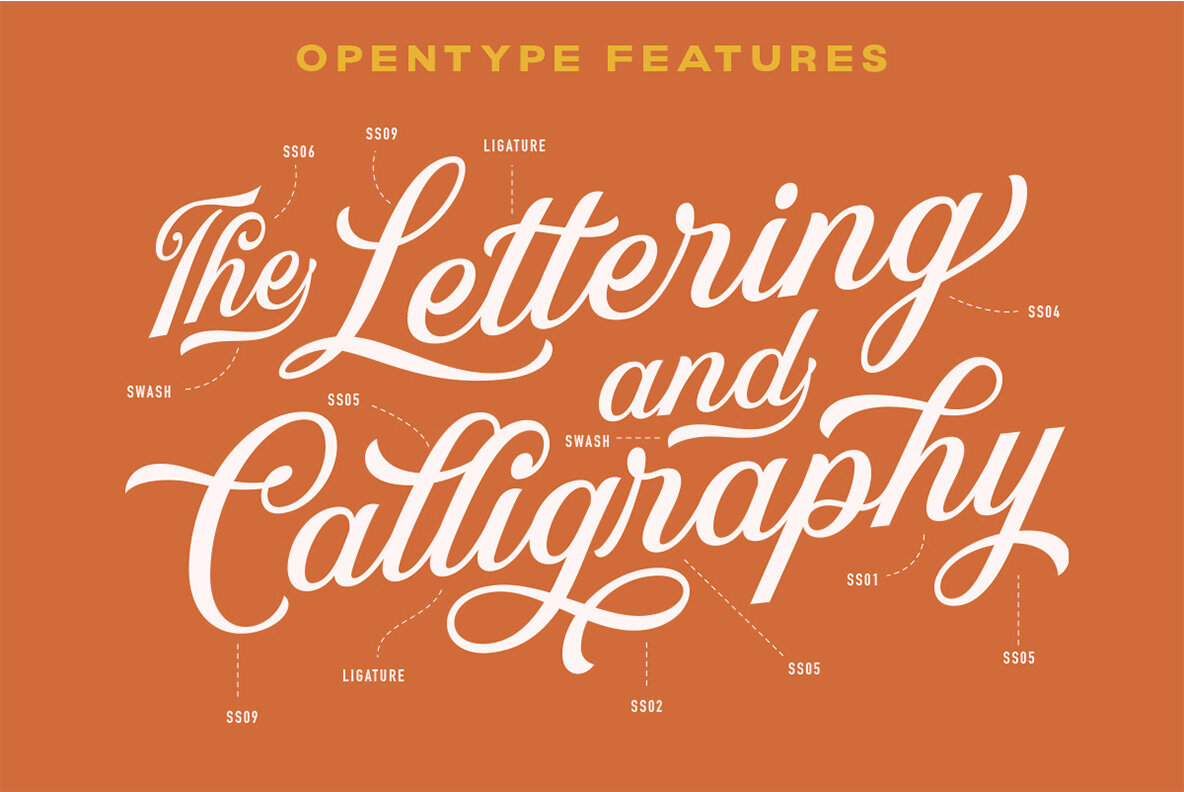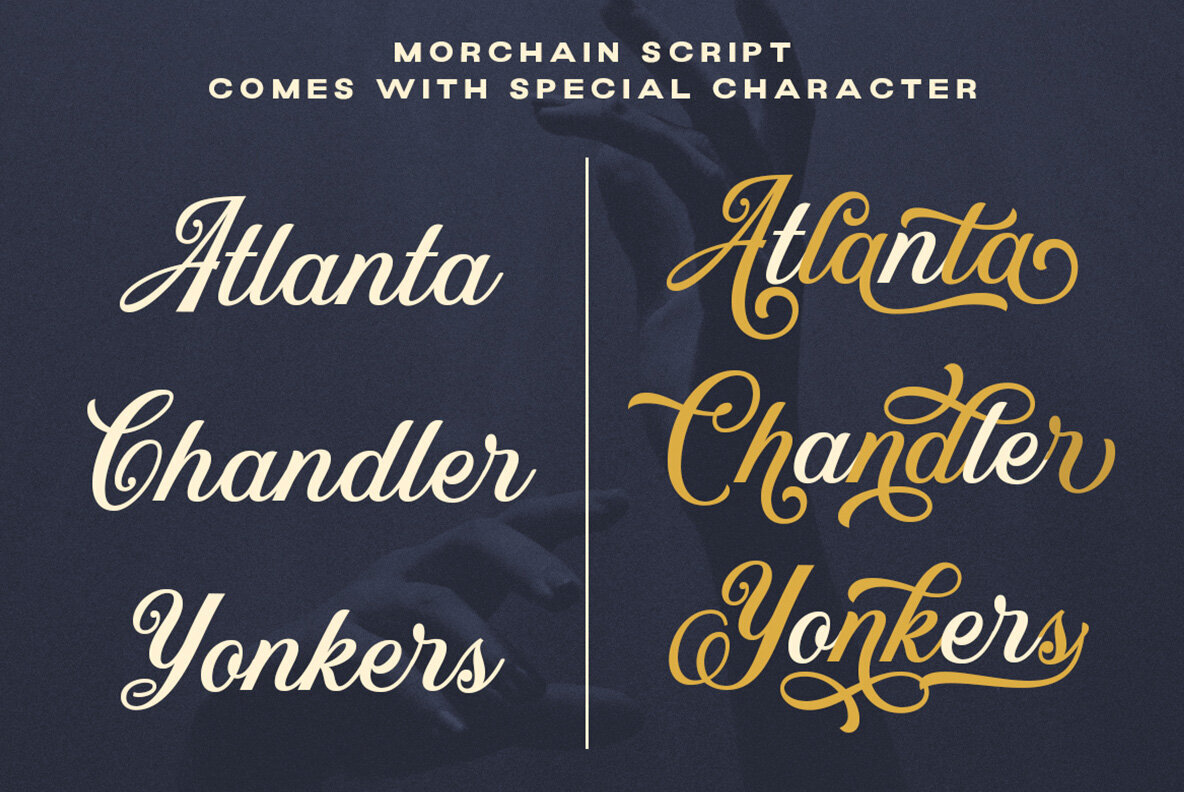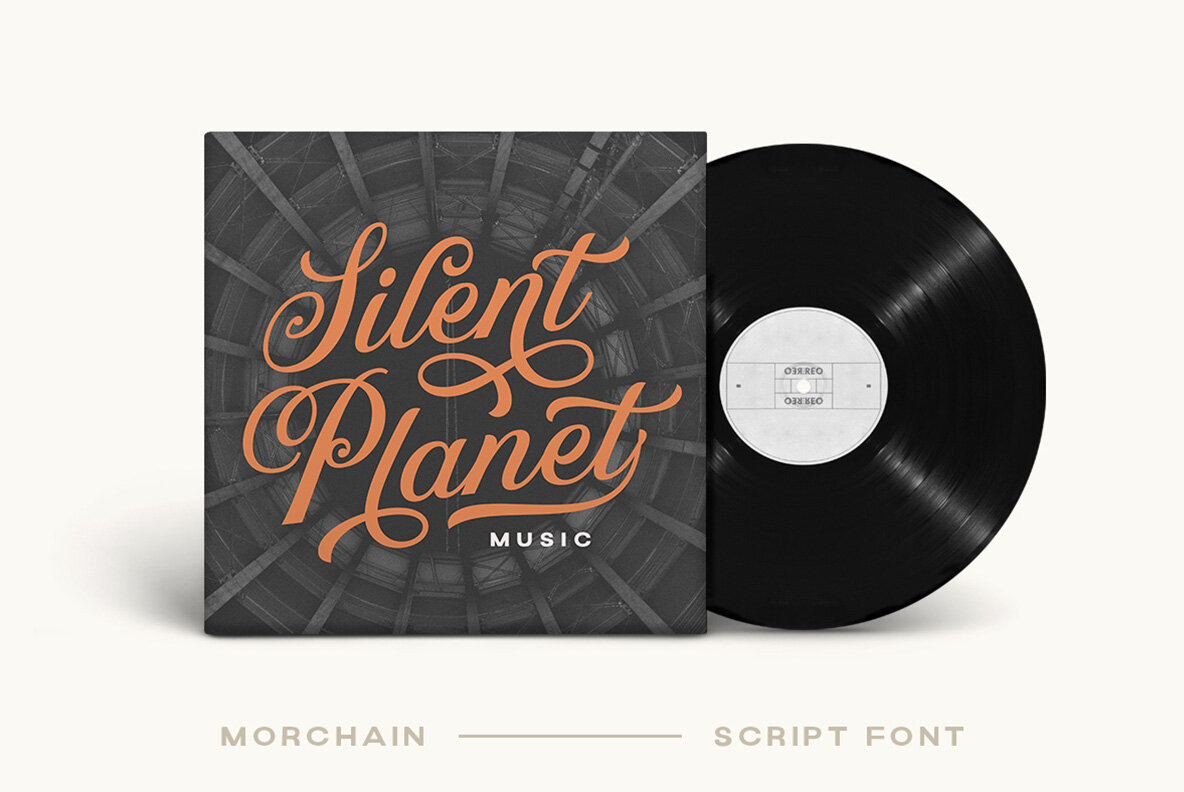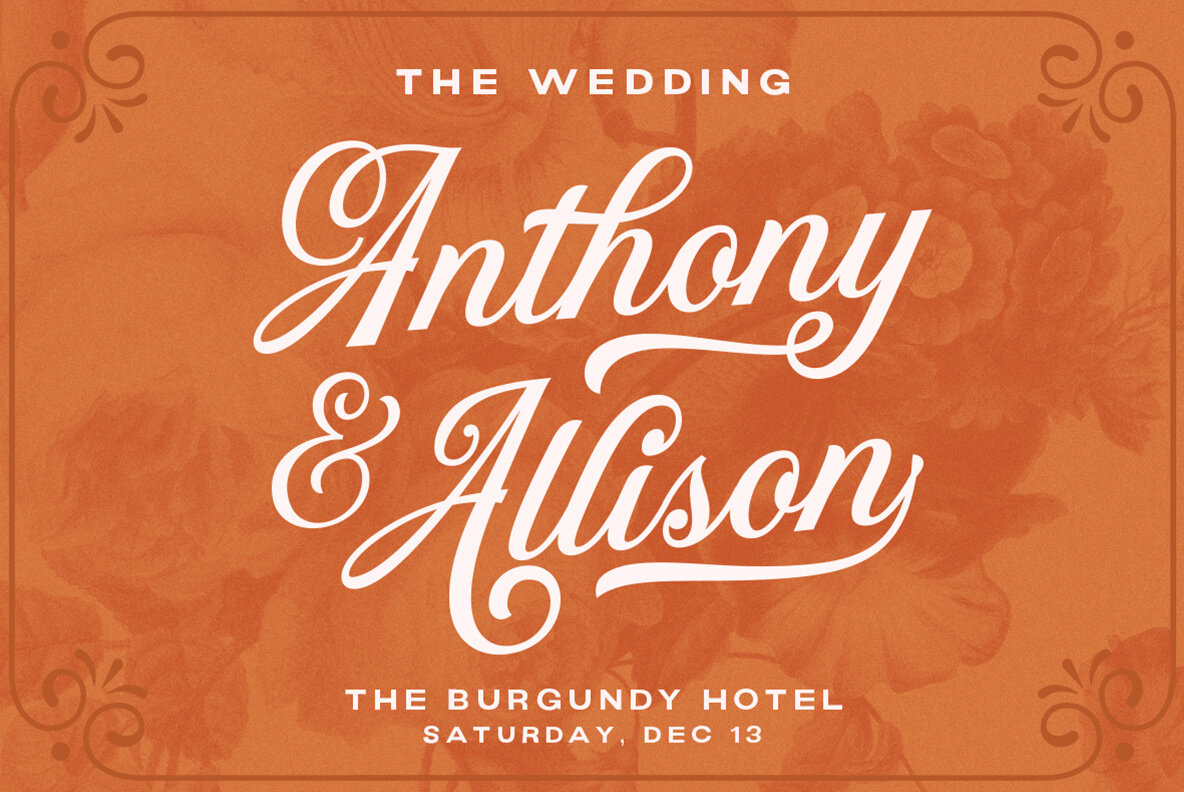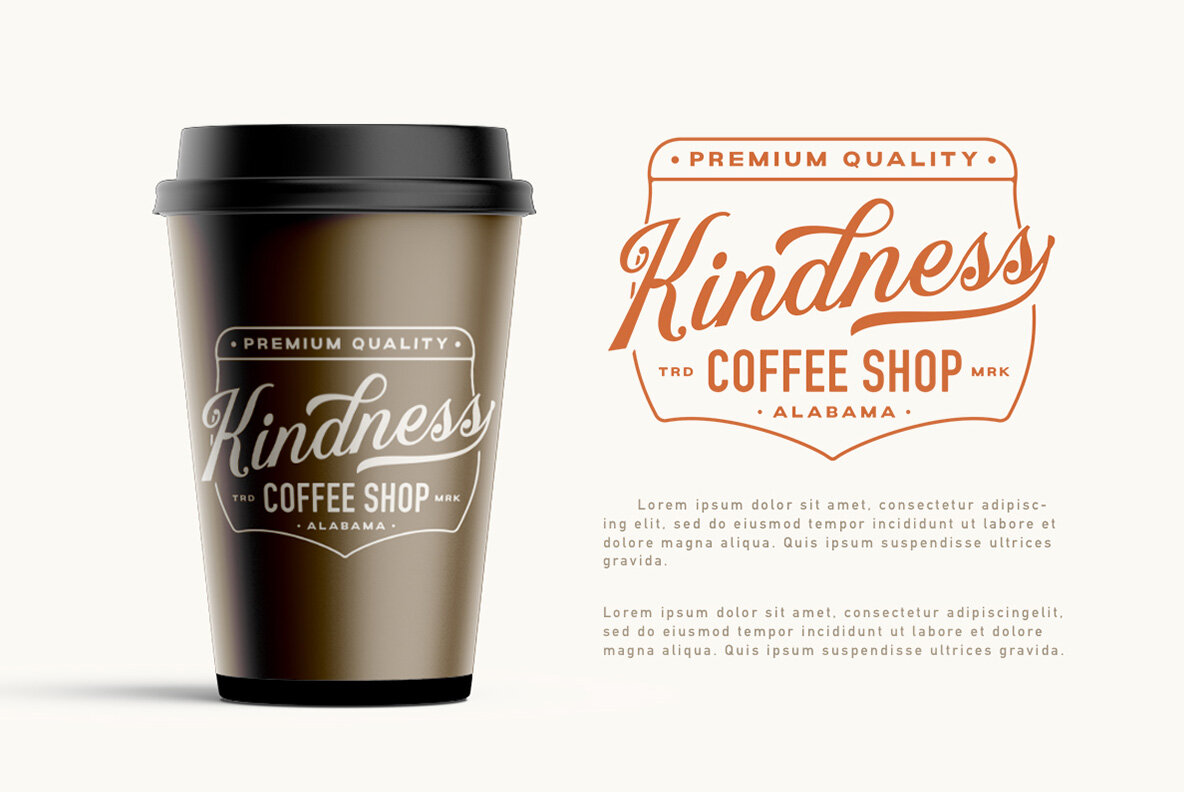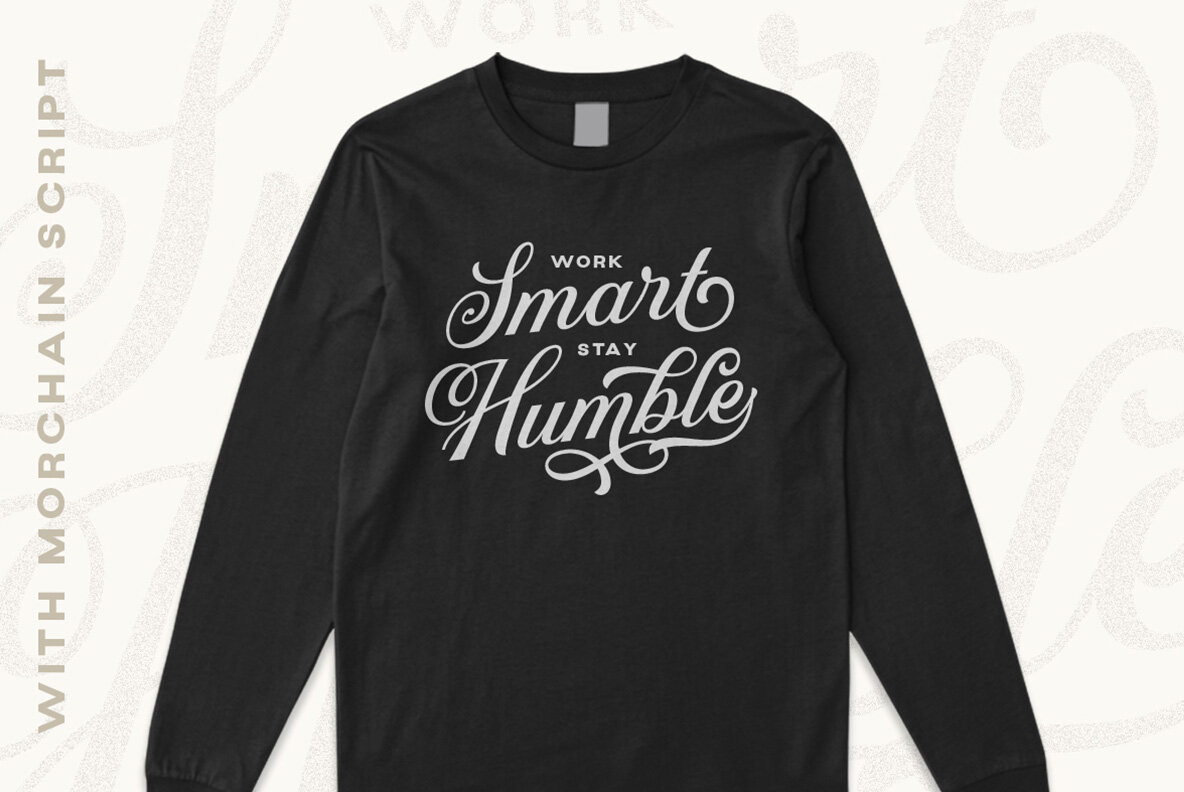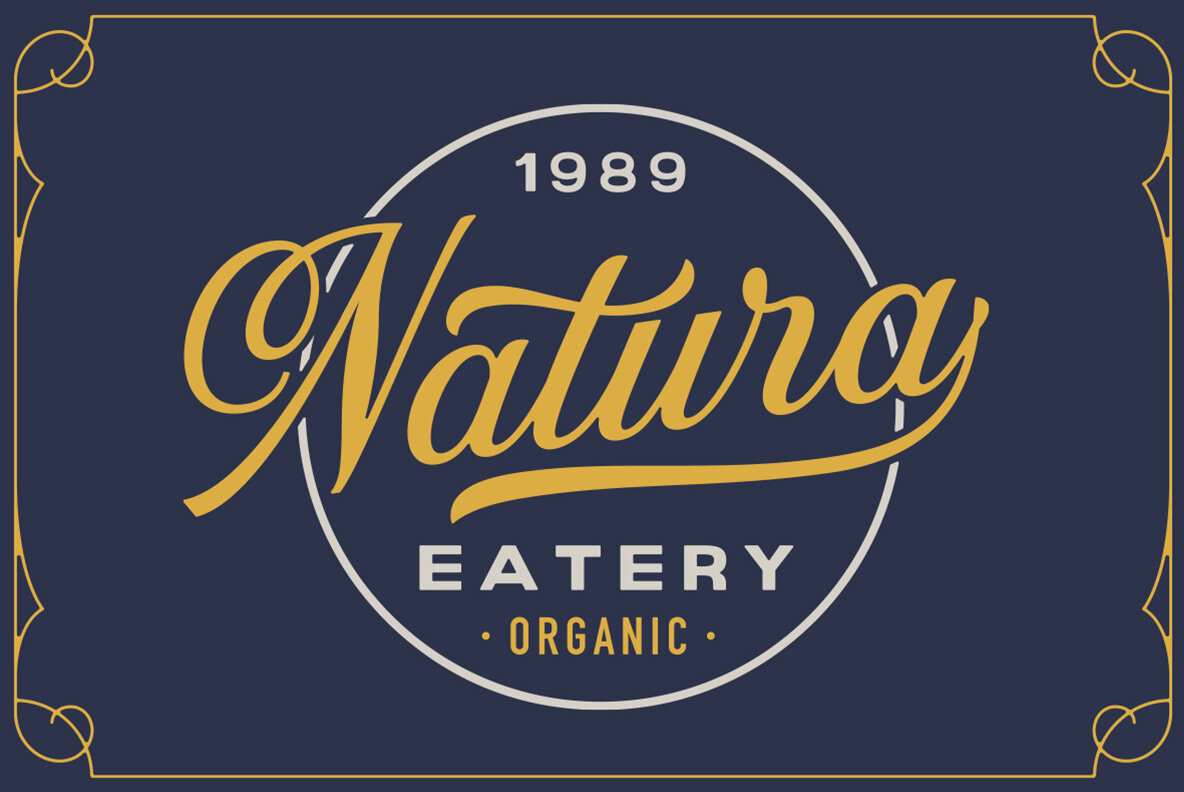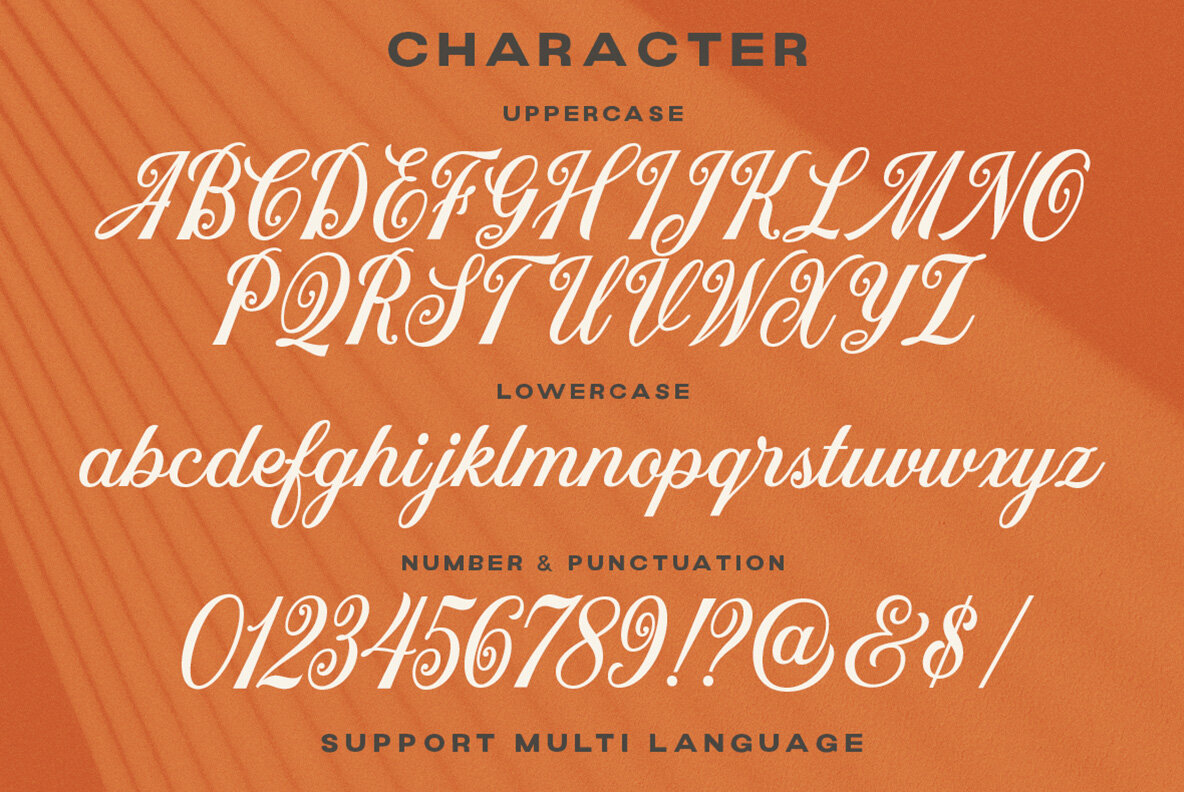
Morchain Script Font
Morchain Regular
Introducing Morchain, a classy script font with a nostalgic feel that is perfect for projects with a classic or vintage theme. This typeface is well-suited for a variety of formal applications, including logos, invitations, labels, magazines, books, greeting and wedding cards, packaging, fashion, make-up, stationery, novels, labels, and any type of advertising purpose. Morchain's elegant style adds a touch of sophistication to any project, making it an ideal choice for designers and creatives seeking to elevate their work. With its versatility and nostalgic charm, Morchain is sure to make a lasting impression.
Features:
- Uppercase & lowercase
- Numbers and punctuation
- Alternates & Ligatures
- Multilingual